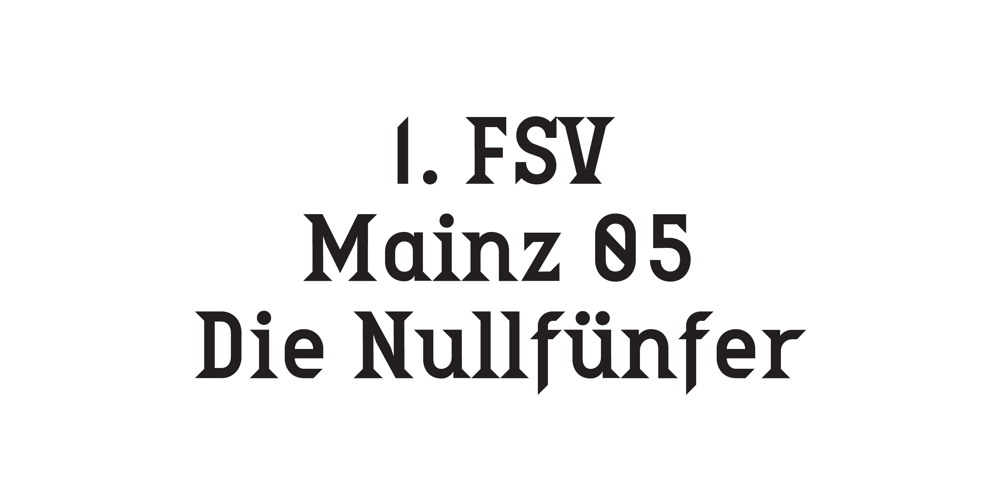
Bobik Font Family was designed by Lewis McGuffie and published by Lewis McGuffie Type. Bobik contains 3 styles and family package options. Bobik is a display type family with three faces – sans, serif and slab. The family was drawn initially on basic principles described in Jean Alessandrini’s Codex 80 and then further developed, including adding a lowercase and ligatures. With a clean sans, robust slab and dramatic serif, Bobik has a contemporary European feel and is ideal for headlines, editorial and short copy. Each face contains upper and lowercase plus West, Central and East European language support.